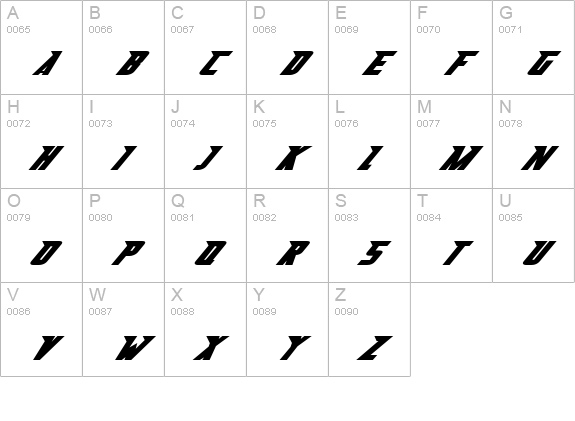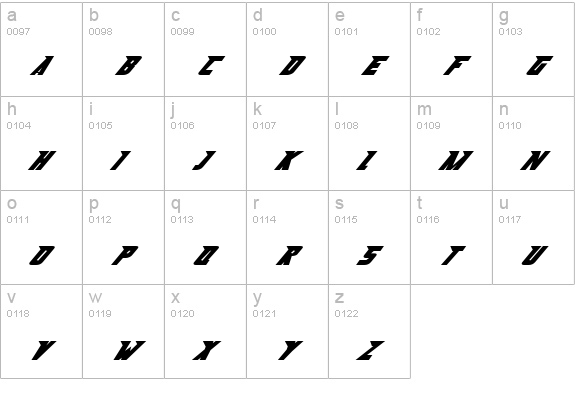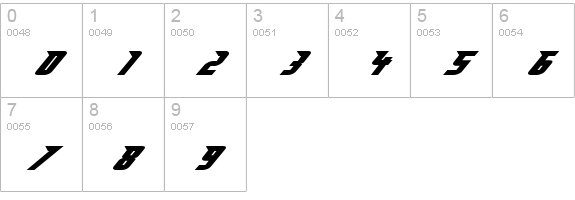
Abberancy Font Details
Introducing Abberancy font, a captivating typeface that exudes a sense of uniqueness and creativity. With its intriguing design and stylish flair, Abberancy is the perfect choice for projects that require a touch of originality and sophistication. This versatile font features a harmonious blend of modern and classic elements, making it suitable for a wide range of design applications. Whether you're working on a branding project, editorial design, or any other creative endeavor, Abberancy is sure to make a statement and leave a lasting impression. Best of all, Abberancy is available for free download at FontsMarket.com. Simply visit the website to get your hands on this stunning font and start incorporating it into your designs today. Embrace the beauty and elegance of Abberancy font and take your projects to new heights of creativity and visual appeal.